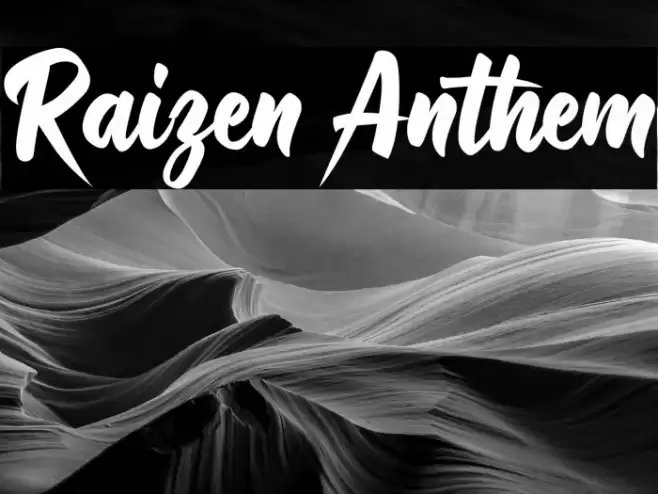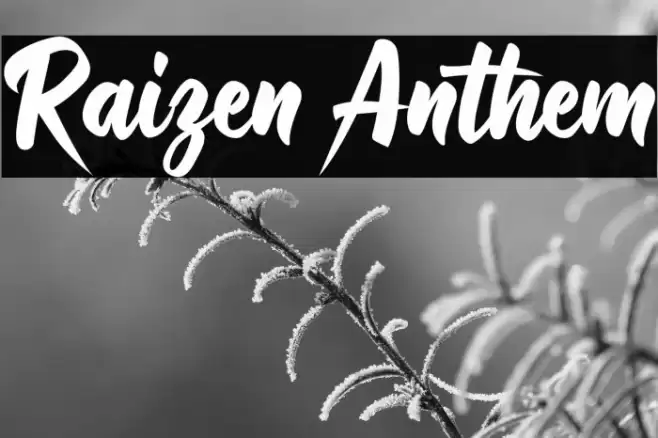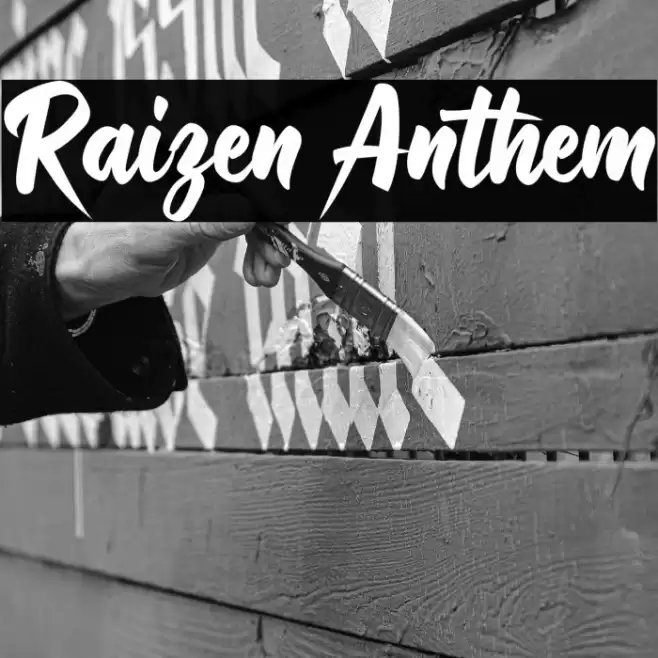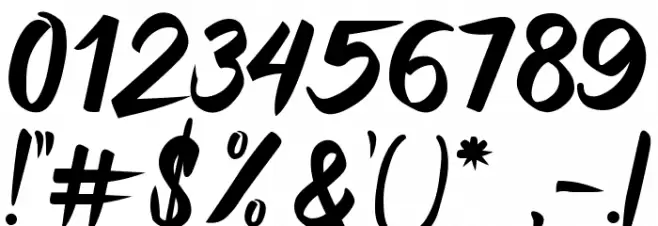
Raizen Anthem Font
Raizen Anthem Description
This font is a bold and expressive script style that exudes energy and movement. The letters are crafted with a brush-like appearance, giving them a dynamic and fluid look. The uppercase characters are particularly striking, with sweeping curves and sharp angles that create a sense of urgency and flair. The lowercase letters maintain the same energetic style, with a slightly more compact form that complements the uppercase. Numbers and special characters are designed with the same bold strokes, ensuring consistency across all elements. This font is perfect for projects that require a strong visual impact and a touch of creativity.
A bold, expressive script font with dynamic, brush-like strokes from Regular fonts.